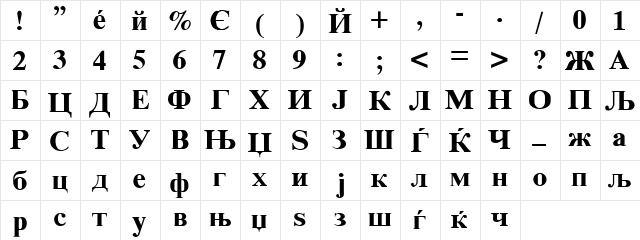
C_KIRTMSB Bold
Design Context for C_KIRTMSB Typeface
C_KIRTMSB offers clean, dependable letterforms without strong stylistic allegiance, making it a practical choice for designers who need flexibility. Its bold stroke weight gives it real presence on the page.